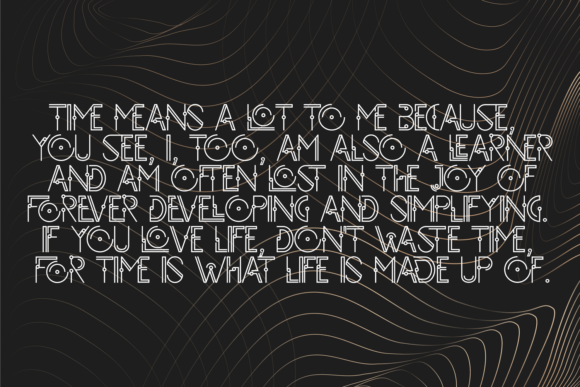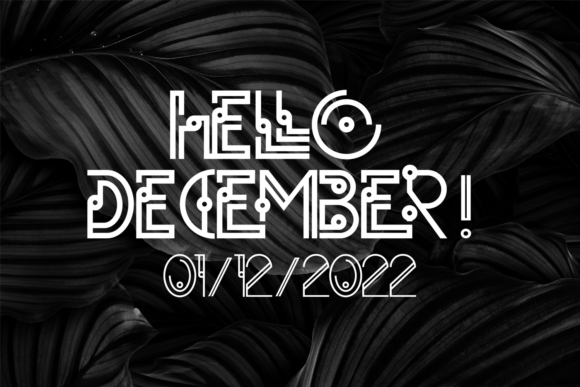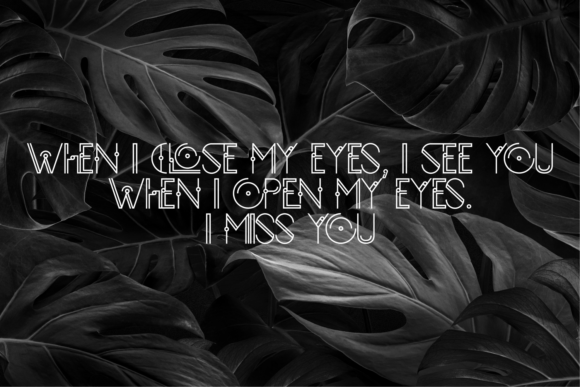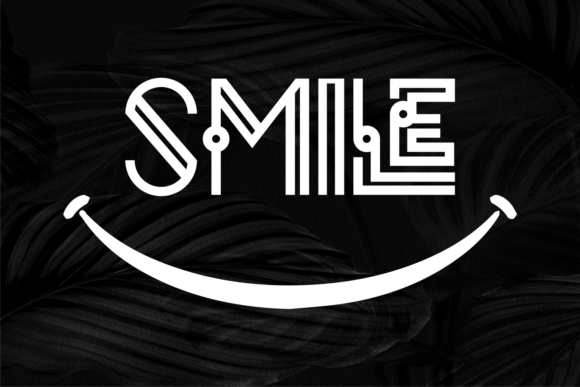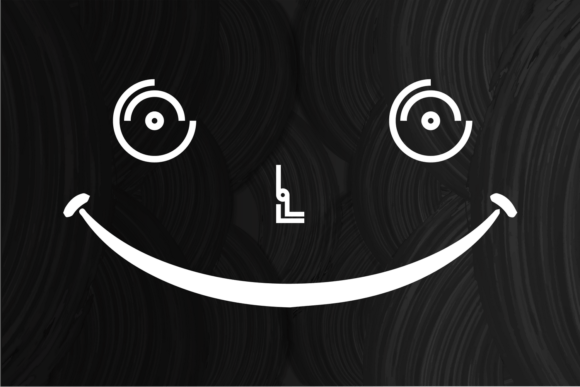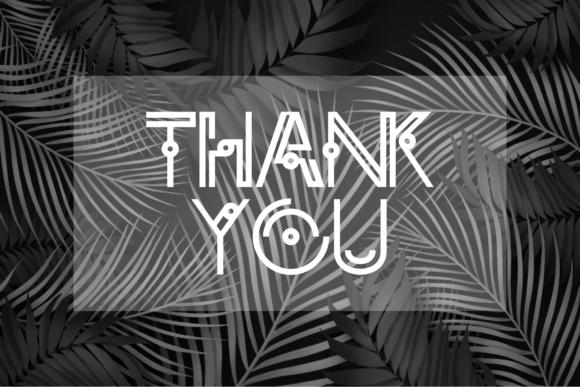
Introduction to Centers Section Font
Do you remember that moment when you stumbled upon the perfect font for your creative project? The one that elevates your design from good to great, and gives it that extra oomph? For designers, finding the right font can be a game-changer, and that’s exactly what we’re excited to introduce you to – the Centers Section Font.
With its modernized geometric style and art-deco form, the Centers Section Font is a valuable addition to any designer’s toolkit. Inspired by the cosmos, this high-quality font is perfect for classic, vintage, and retro-themed designs. Its PUA encoding means you can access all the glyphs and ligatures with ease, making it a free download that’s as versatile as it is stylish.
Key Features of Centers Section Font
- High-quality design resource ideal for creative projects, offering a professional look and feel.
- Features a transparent background, allowing for easy customization and integration with various backgrounds.
- Includes a large character set, making it suitable for a wide range of creative projects, from logos to typography-based art.
- Designed with a high resolution of 300 DPI, ensuring crisp and clear display on various devices and screens.
- Available in a single font size, with a scalable design that adapts to different font sizes and styles.
Honest Review: Centers Section Font
I recently had the chance to work with the Centers Section Font, and I have to say, it’s been a game-changer for my creative projects. The clean, modern design is perfect for a variety of applications, from web design to print materials.
- ✨ The font is highly customizable, making it easy to adjust the size, color, and style to fit your specific design needs.
- ✨ The transparent background option is a huge plus, allowing me to layer the font over images and other design elements without any issues.
That being said, there are a few limitations to keep in mind. The font can be a bit cumbersome to install, especially for those who are new to font management. Additionally, the font’s versatility can sometimes be a double-edged sword – while it’s great for general use, it may not be the best choice for more specialized projects.
Overall, I’m thoroughly impressed with the Centers Section Font. Its high quality and flexibility make it a valuable resource for any designer, and the free download option is a huge plus. If you’re looking for a reliable font to add to your design arsenal, I highly recommend giving it a try.
Centers Section Font
Tips for Getting the Most Out of it
For best results, use the Centers Section Font in combination with other design elements to create a visually appealing design. Experiment with different font sizes and styles to add depth and interest to your design.
The Centers Section Font is ideal for use in a variety of creative projects, including blog posts, social media graphics, and presentations. Its high-quality design and transparent background make it a versatile design resource that can be used in a range of contexts.